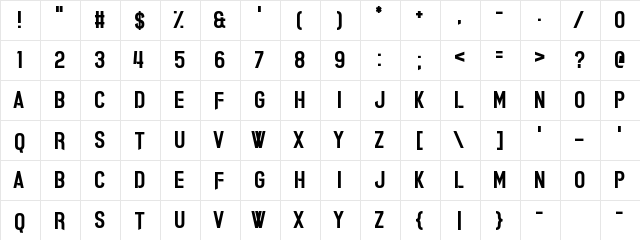
Whisper Quiet Regular
Design Context for Whisper Quiet Typeface
Whisper Quiet offers clean, dependable letterforms without strong stylistic allegiance, making it a practical choice for designers who need flexibility.
Pro Tip: Use Whisper Quiet in both headline and body roles to test its range before committing to a single application.